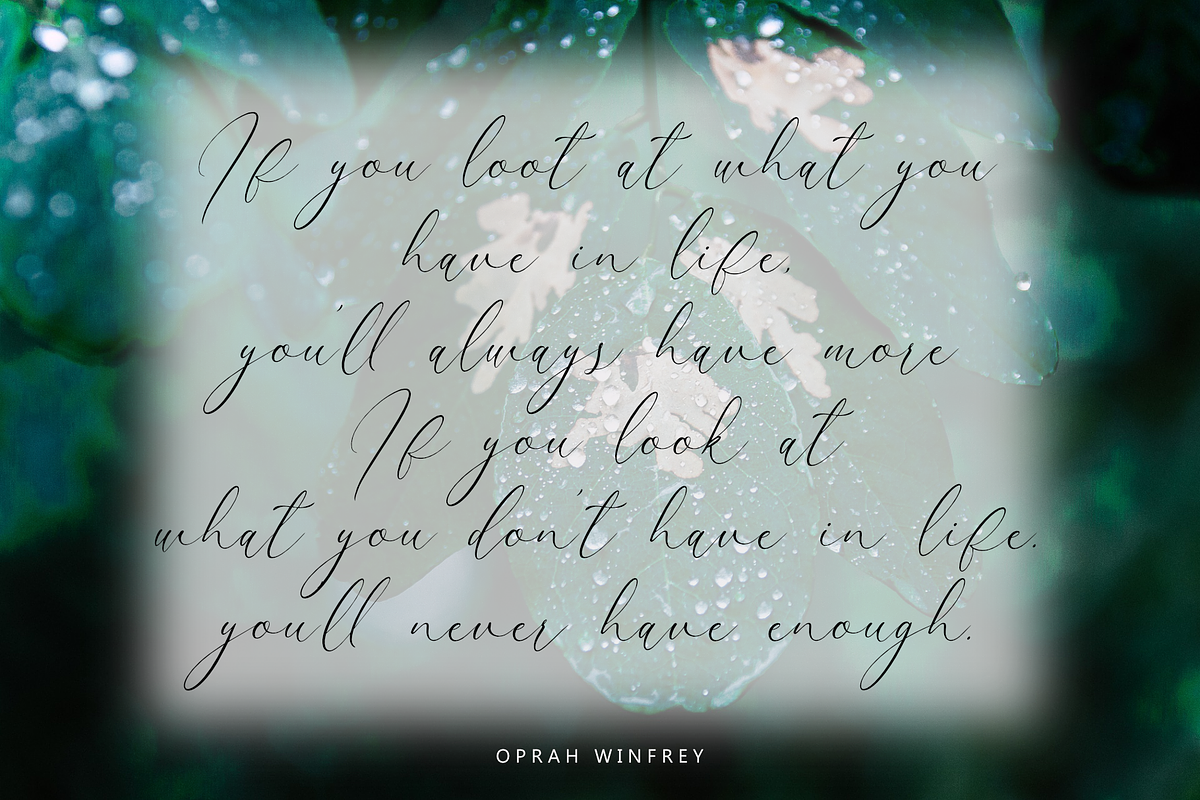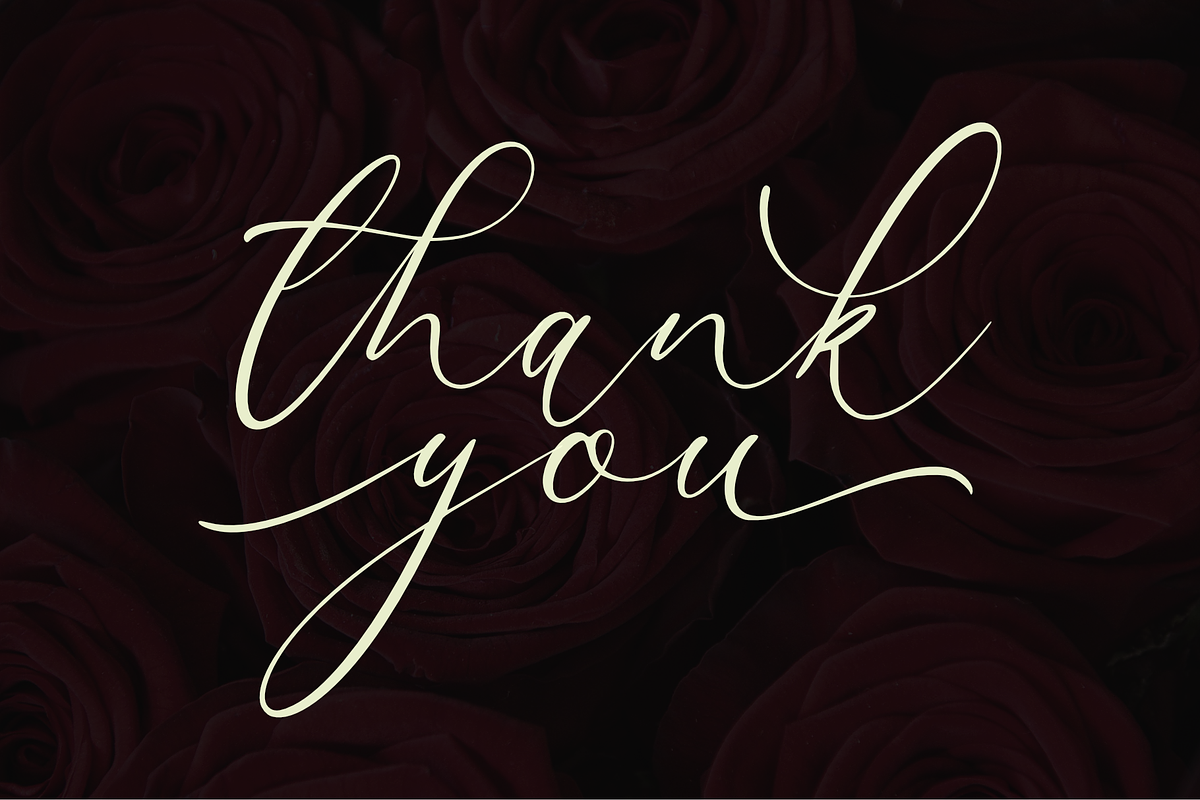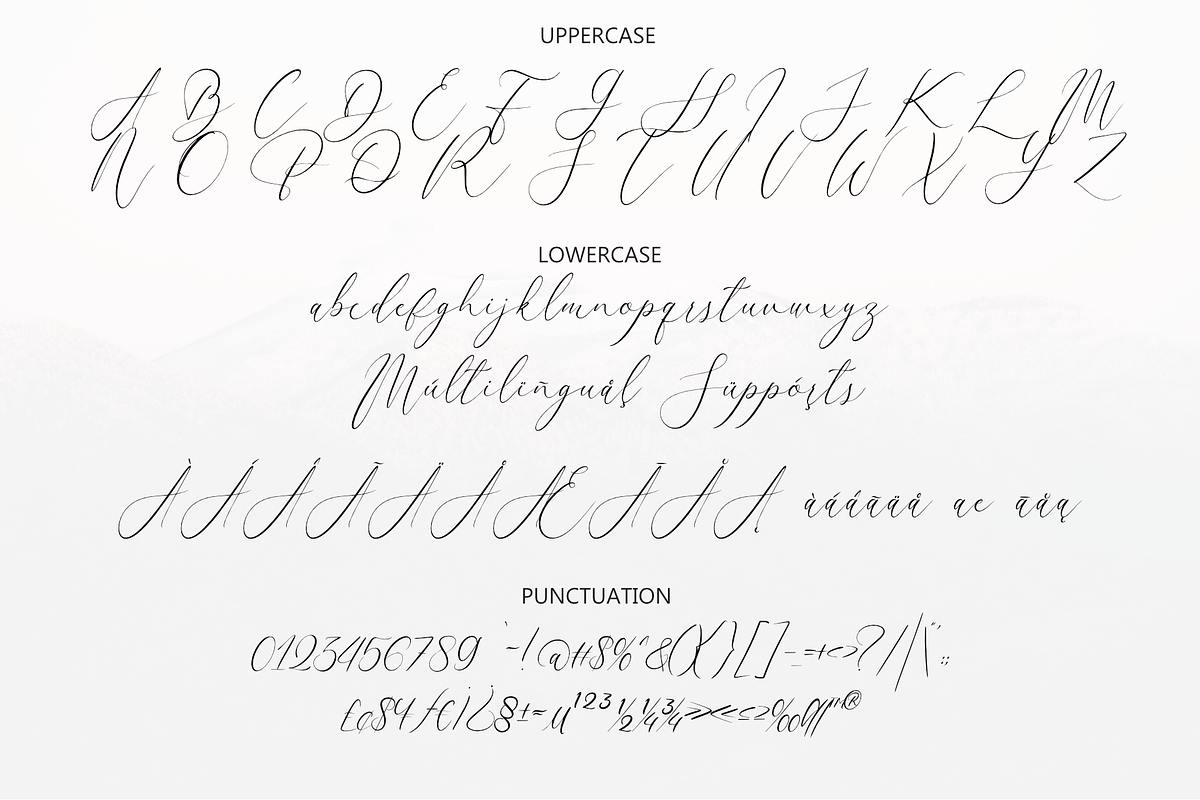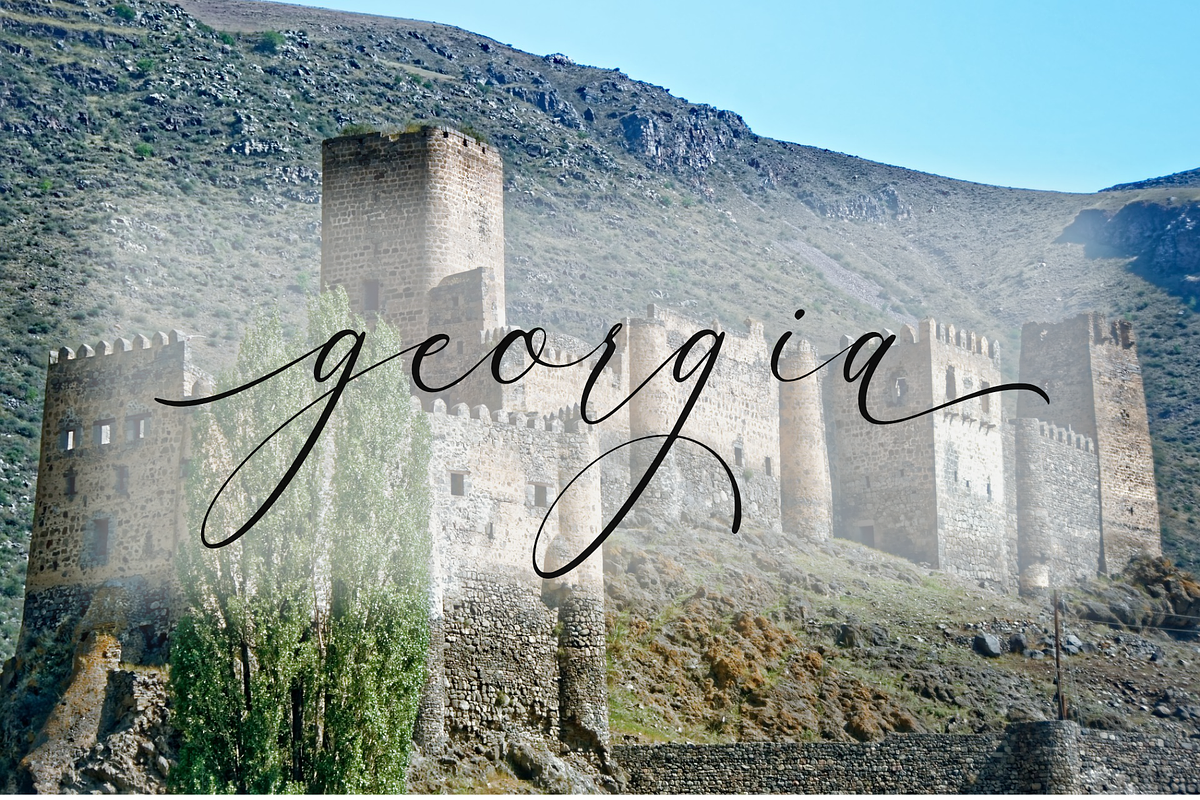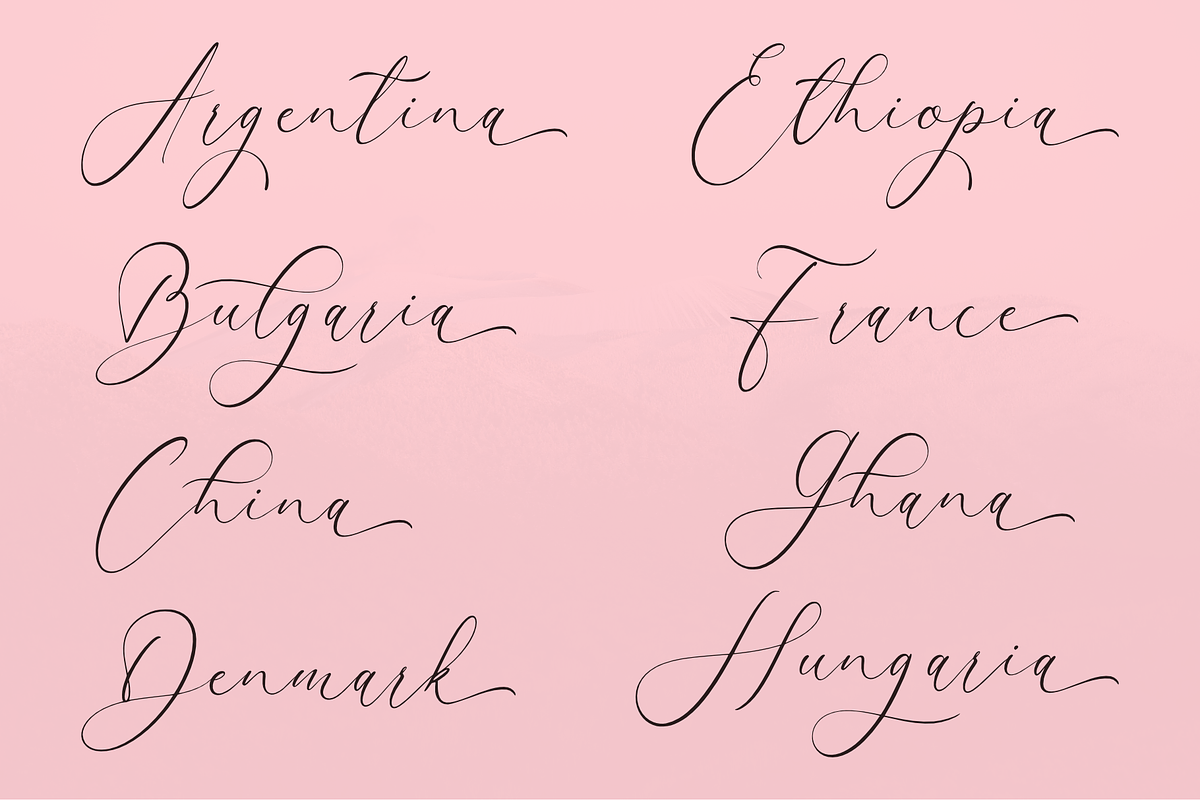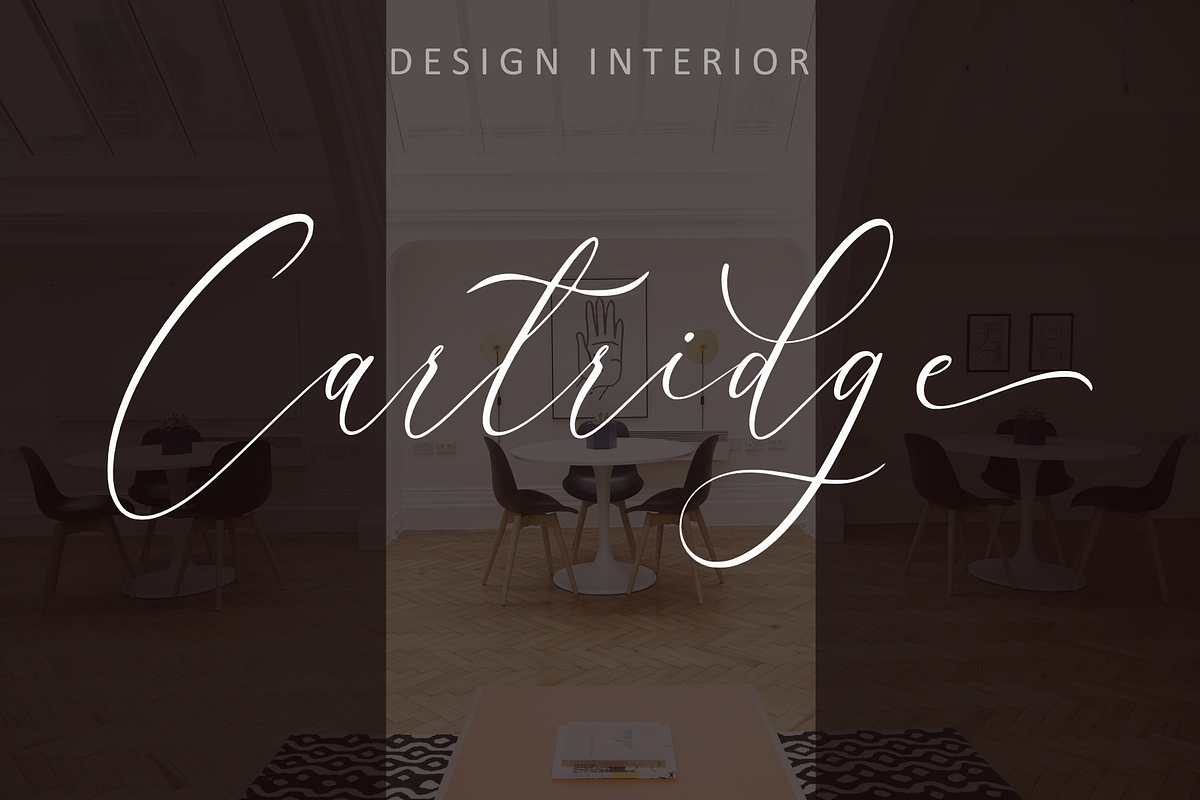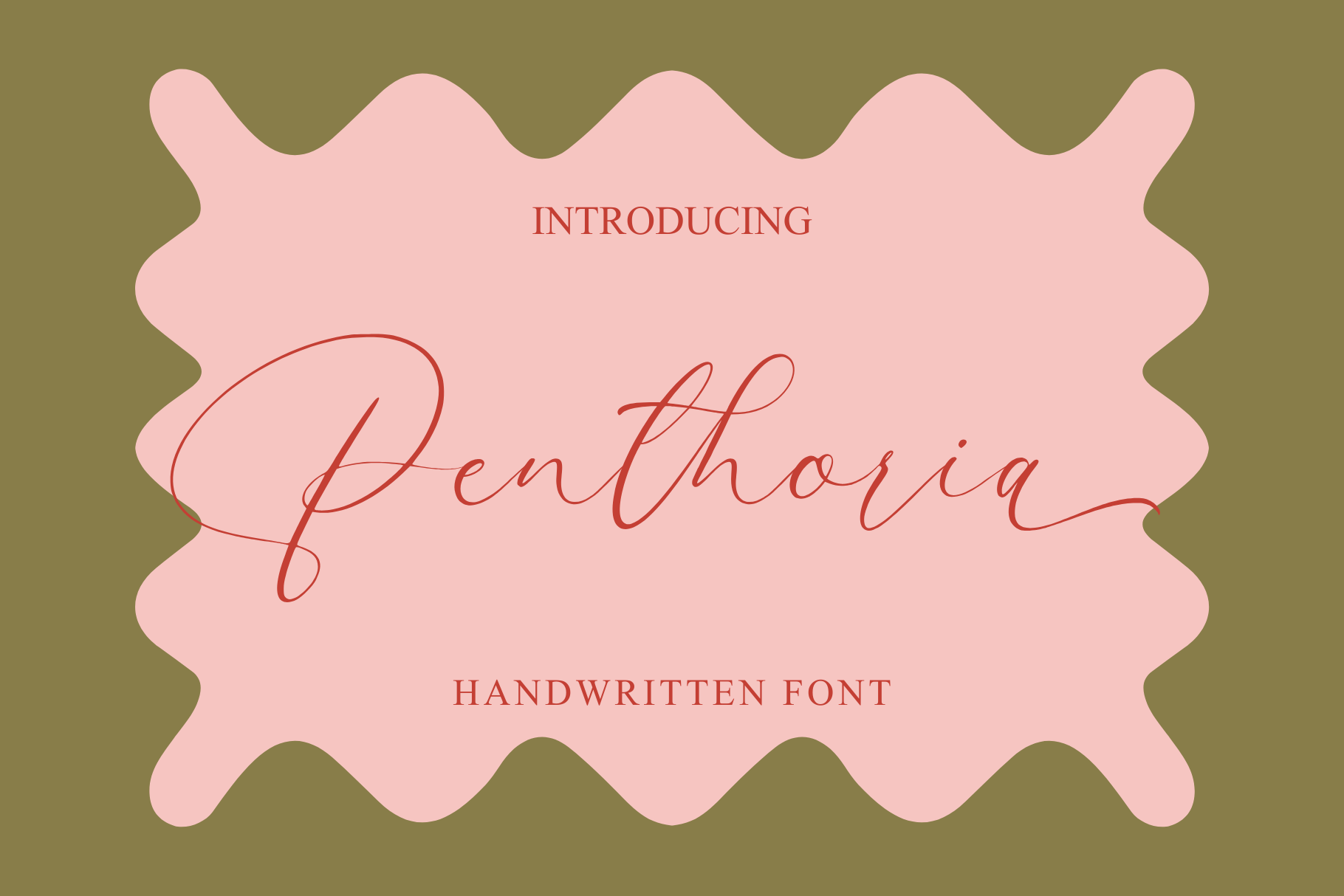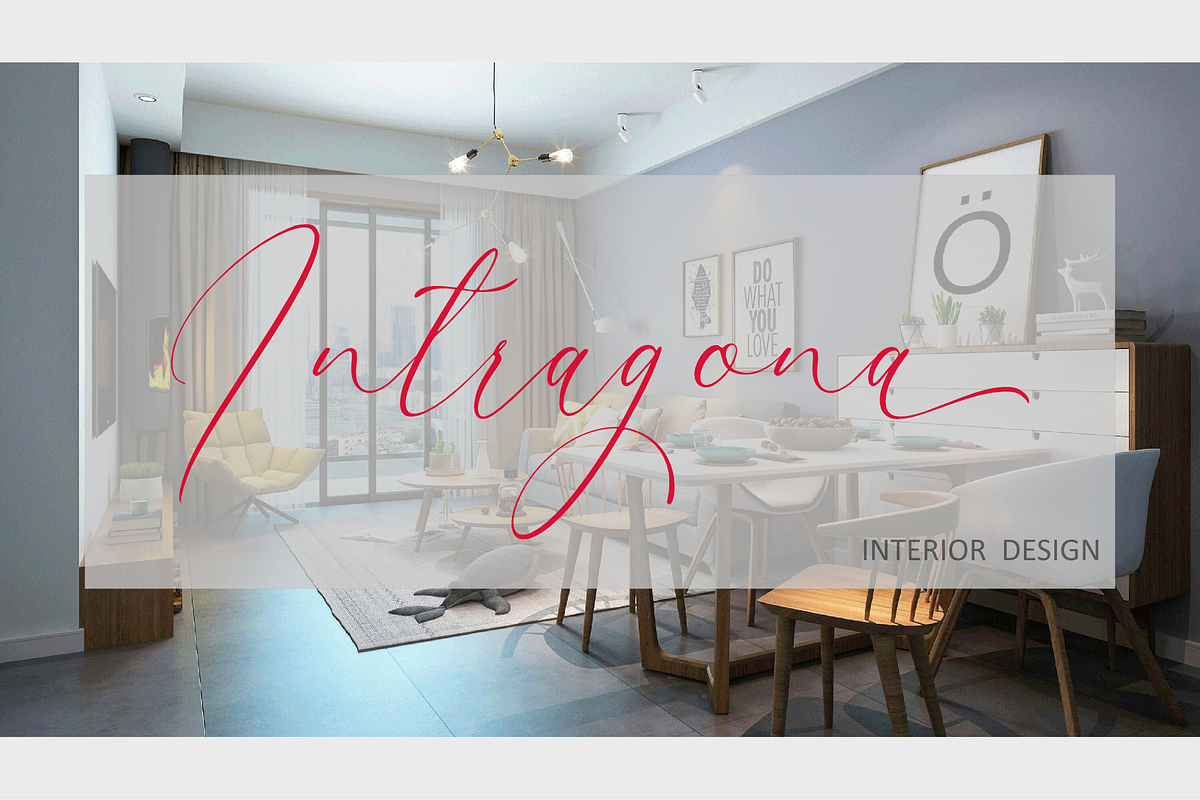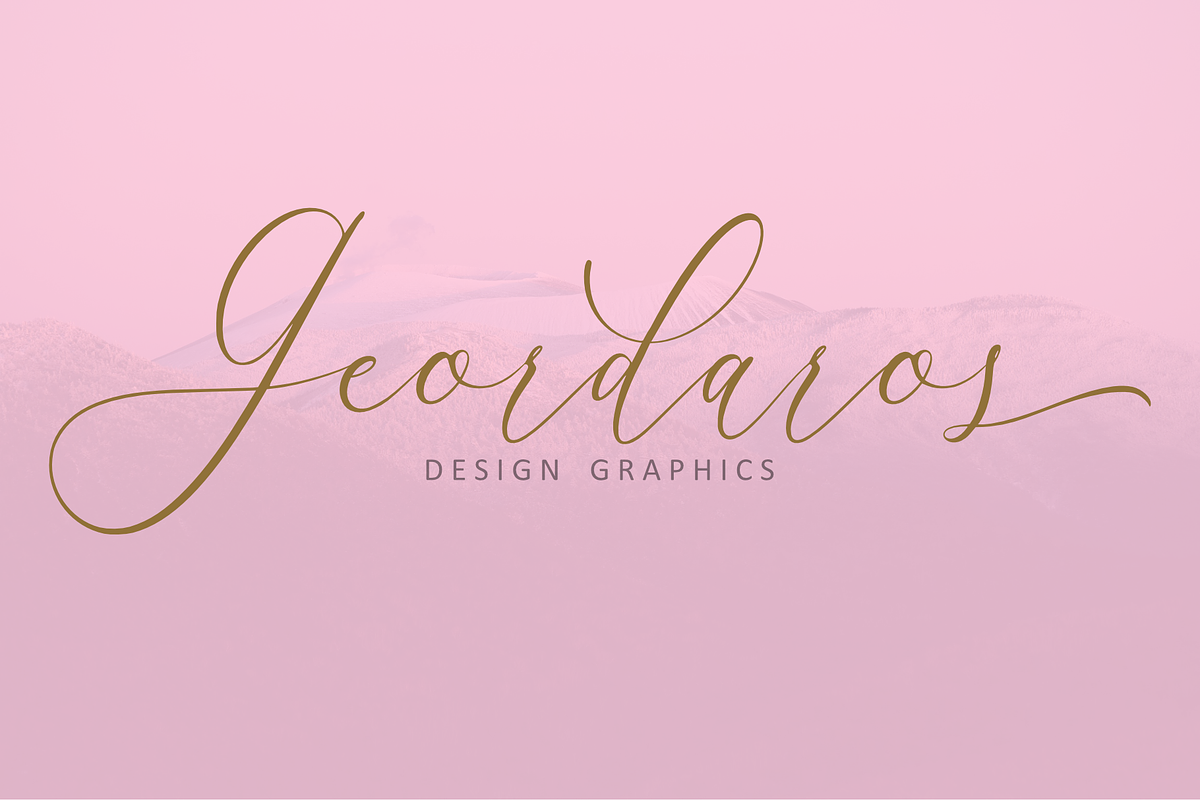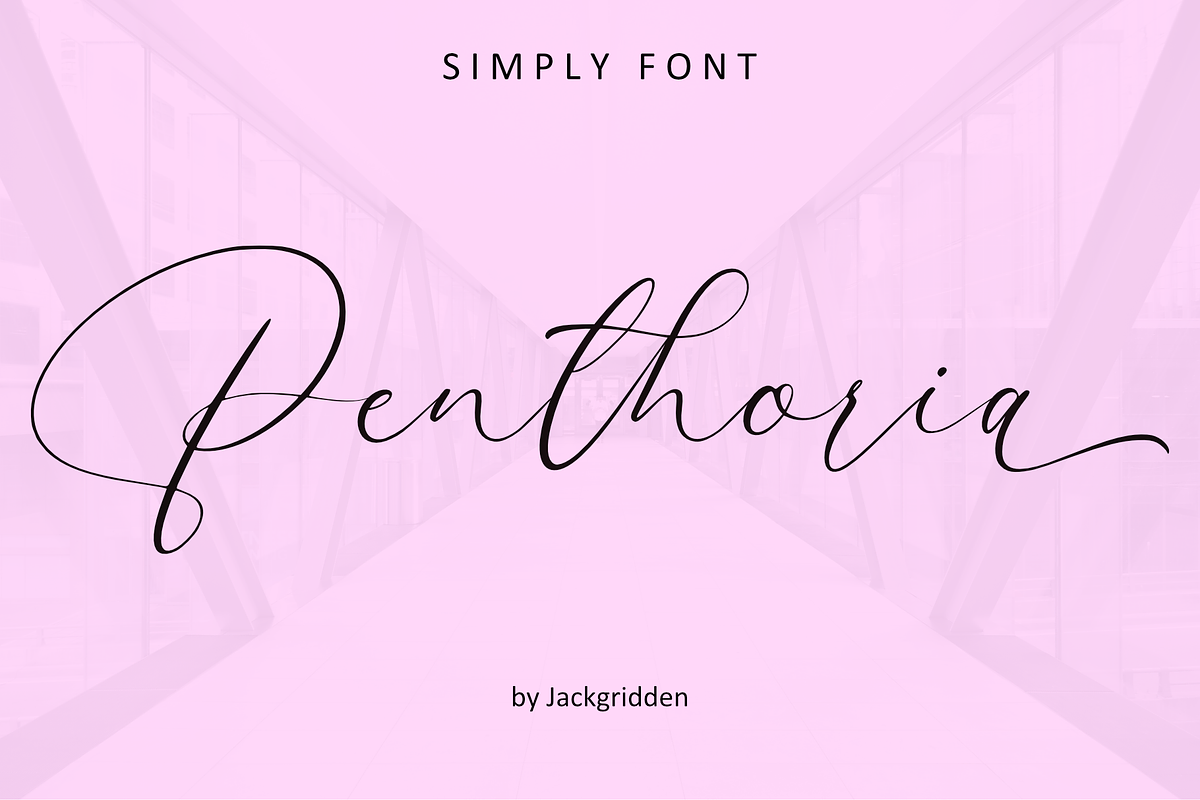
Penthoria | Handwritten Font
Penthoria is an elegant and sophisticated handwritten font, perfect for adding a touch of class to any wedding or special event. With its graceful curves and refined strokes, Penthoria captures the essence of timeless romance and is ideal for invitations, announcements, and other celebratory designs. Its versatility and charm make it a standout choice for creating memorable and beautiful typographic elements.